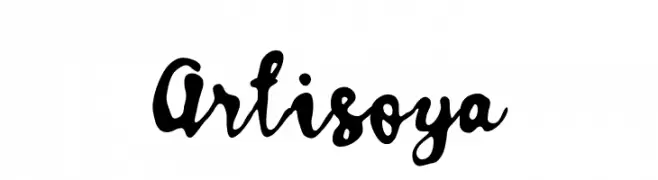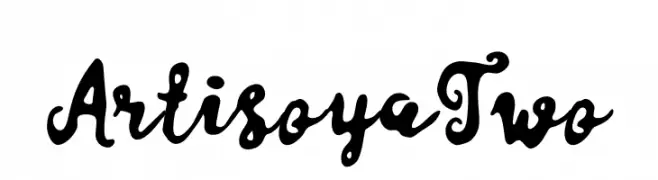
• Artisoya
A bold, playful script font with a handwritten, vintage feel.
• Artisoya
A bold, playful script font with a whimsical, handwritten style.
• ArtisoyaThree
A bold, expressive script font with a handwritten, artistic style.
• ArtisoyaThree
A bold, expressive handwritten font with a dynamic and fluid style.
• ArtisoyaTwo
A bold, playful script font with a handwritten style.
• ArtisoyaTwo
A bold, playful script font with fluid, interconnected strokes.